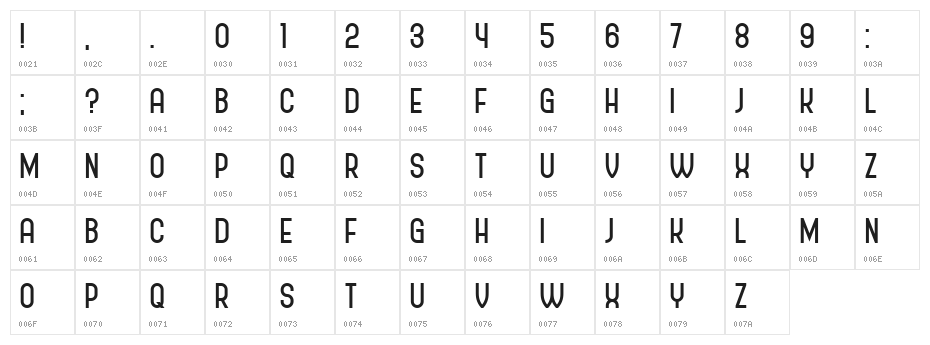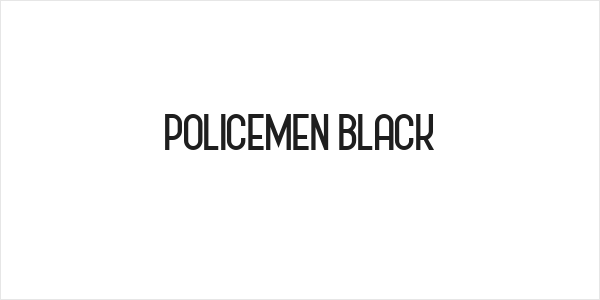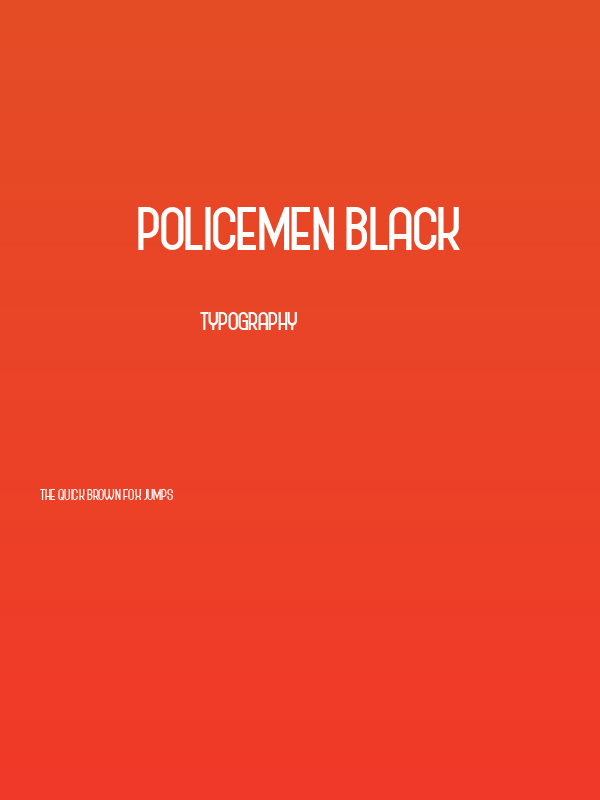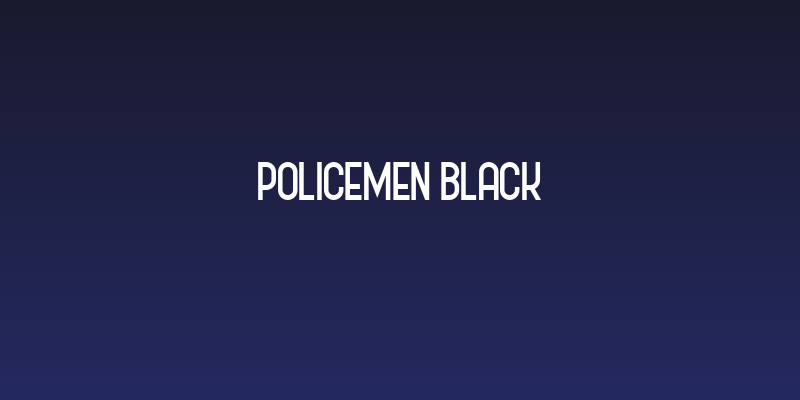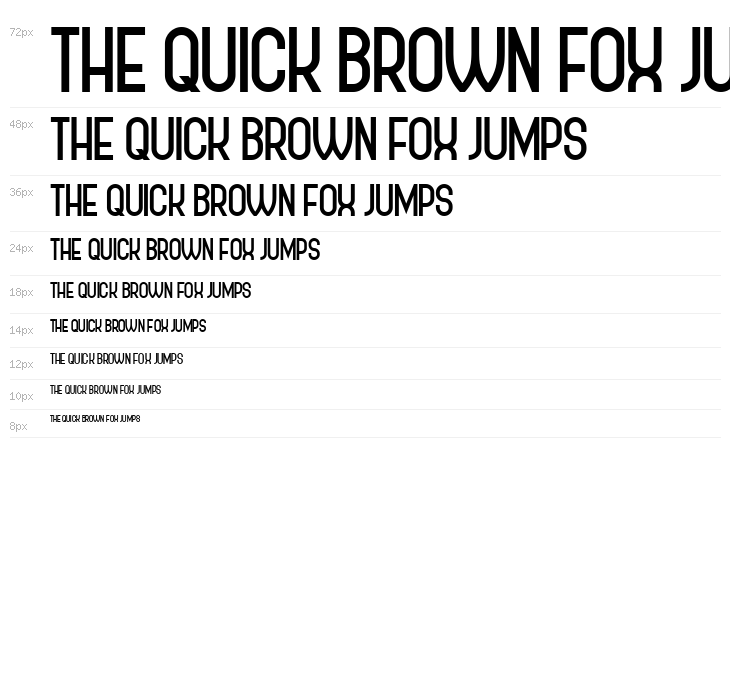
Policemen Black Font
Policemen Black Description
This font features a bold and geometric sans-serif style, characterized by its clean lines and modern aesthetic. The uppercase letters are uniform in height, with a slightly condensed width, giving it a compact and structured appearance. The numerals are consistent with the letterforms, maintaining the same boldness and clarity. The special characters are designed to match the overall geometric style, ensuring a cohesive look across all glyphs. This font is highly legible, making it suitable for various design applications where clarity and impact are essential.
| Use Case | Headlines, Logos, Signage |
| Proposed Projects | Ideal for branding, signage, posters, and headlines where a strong and modern presence is desired. |